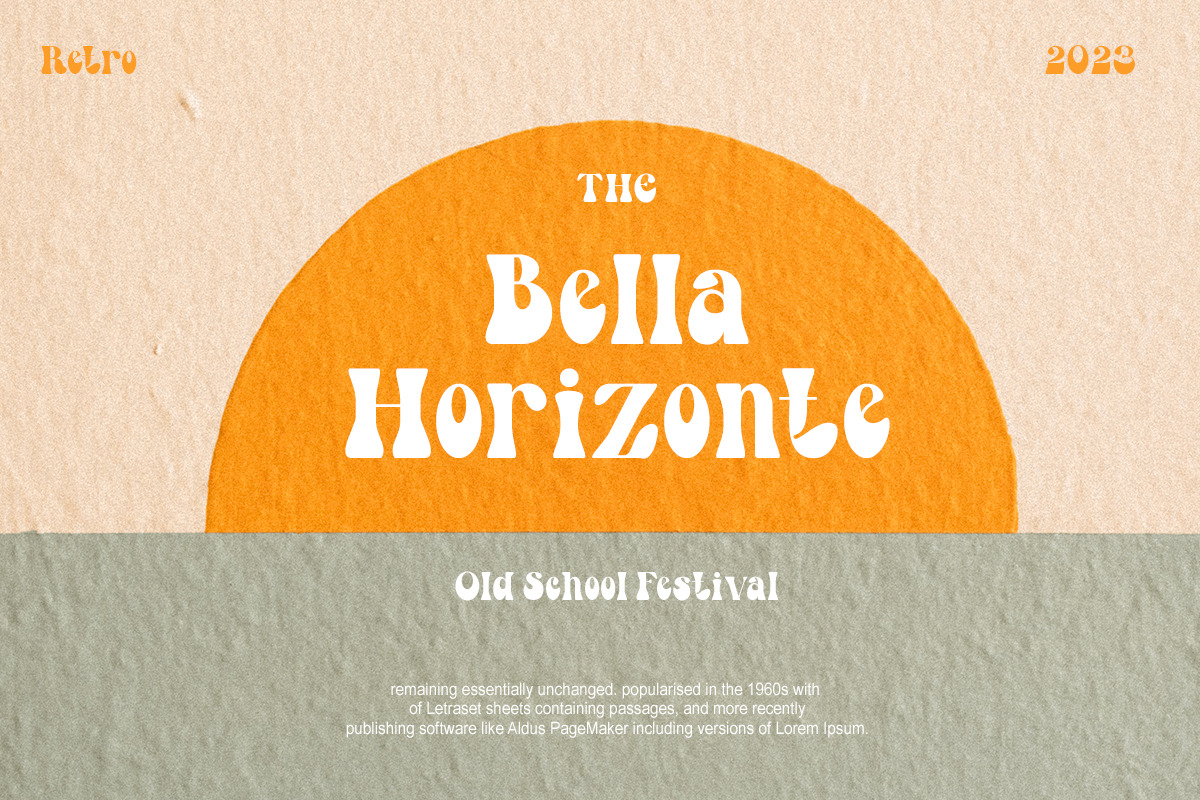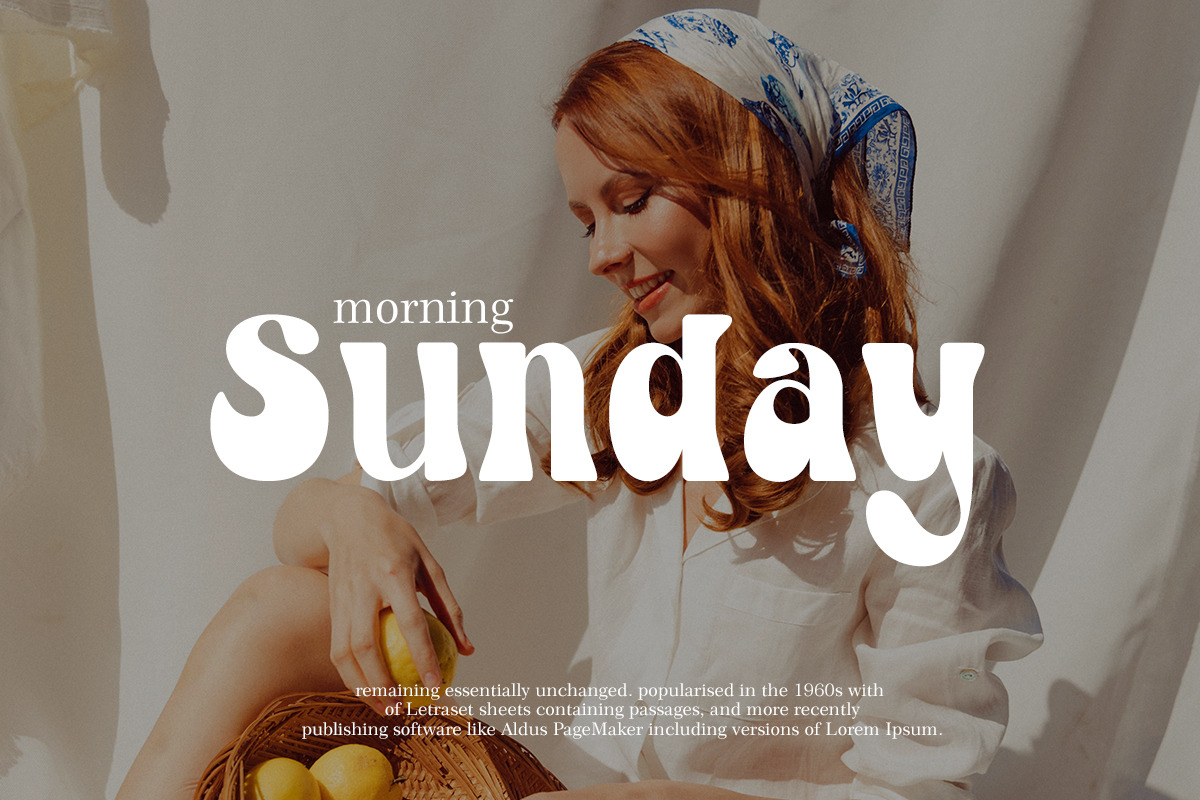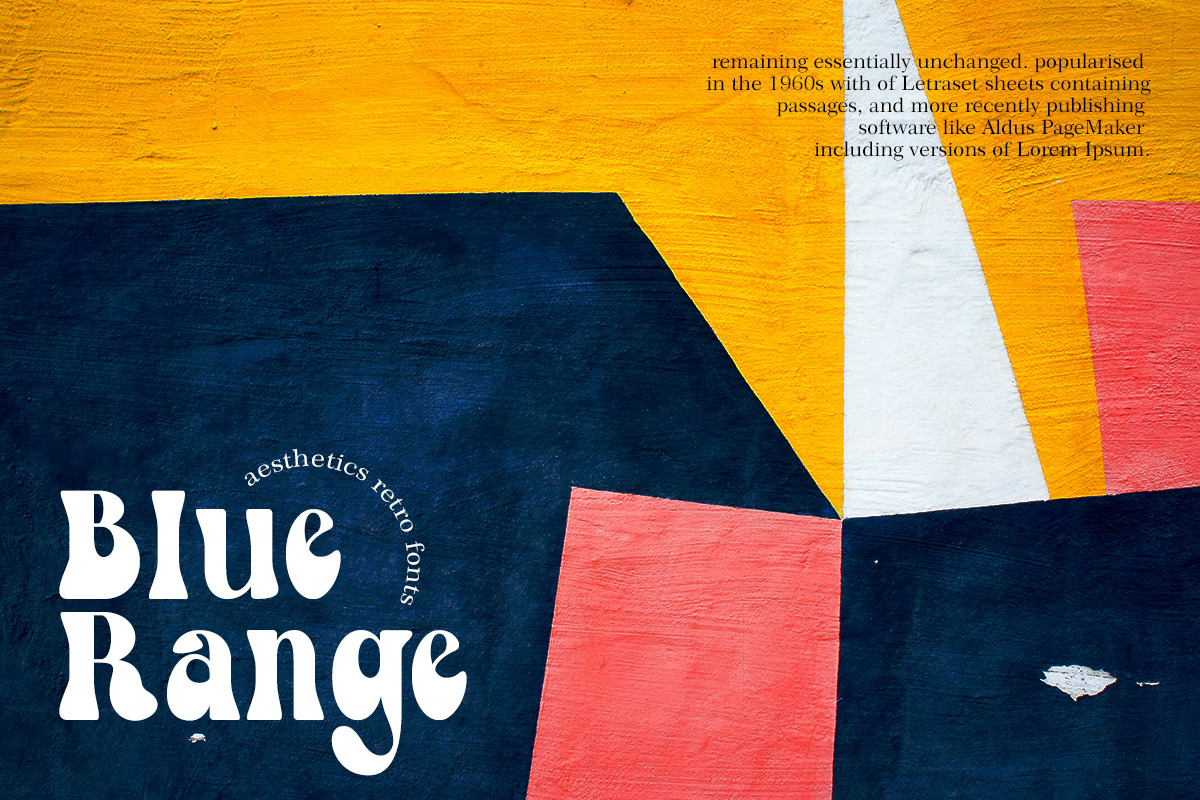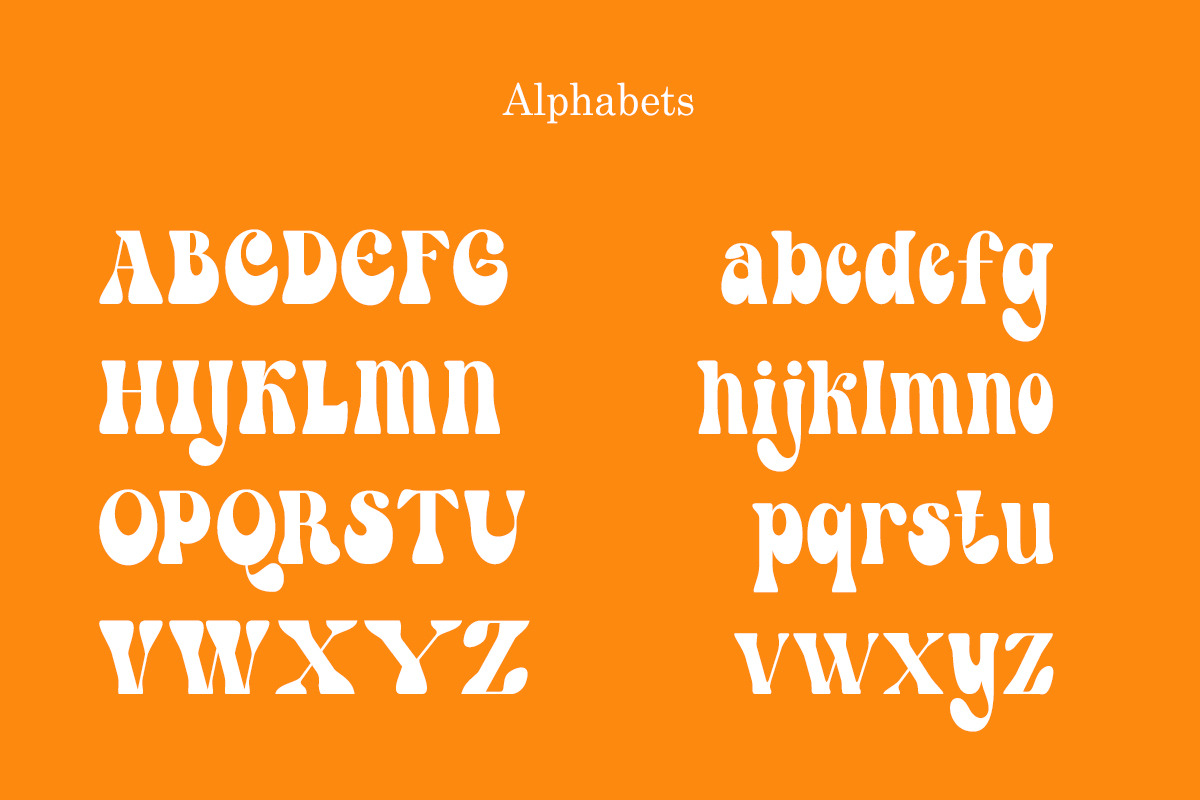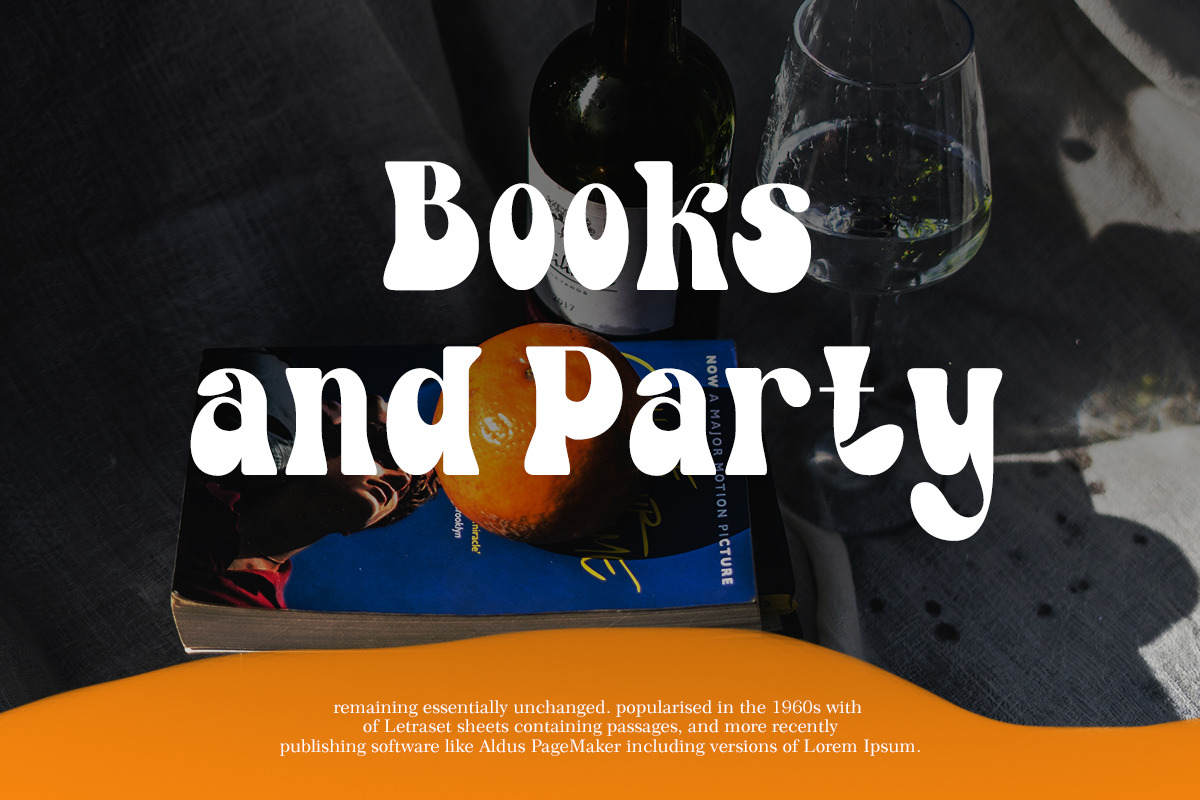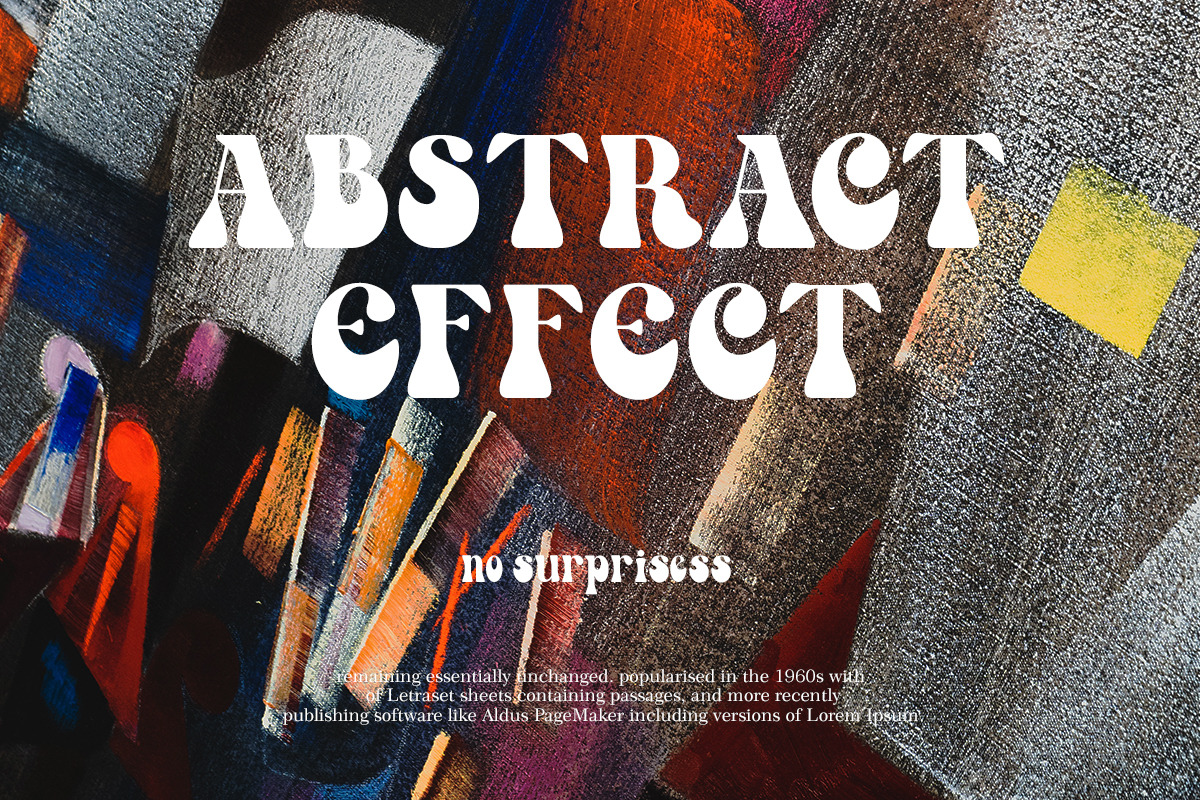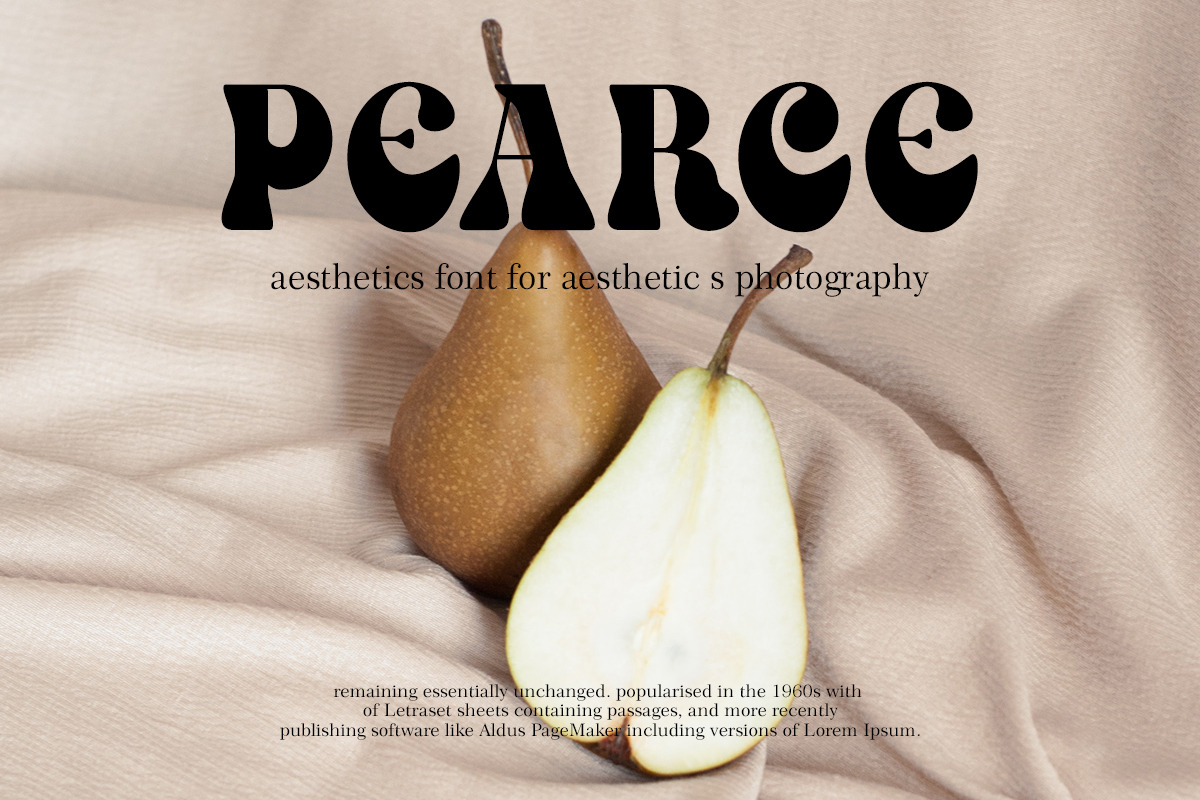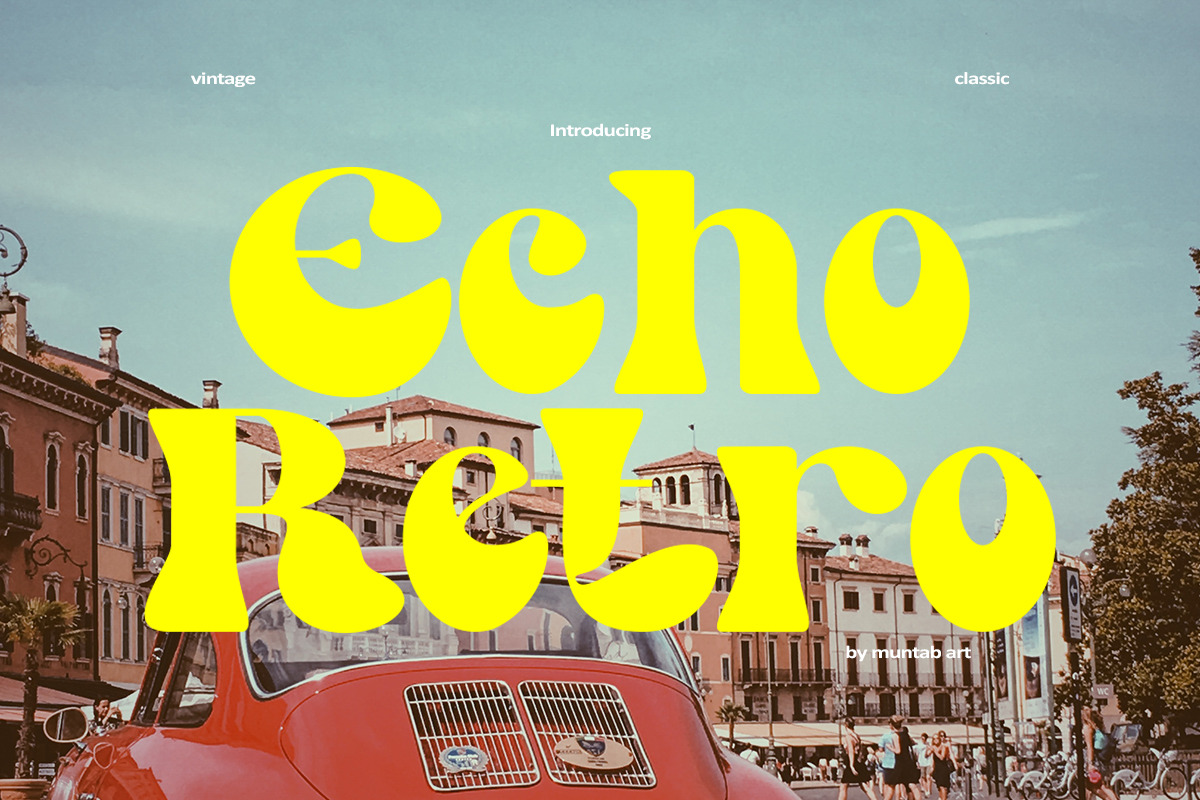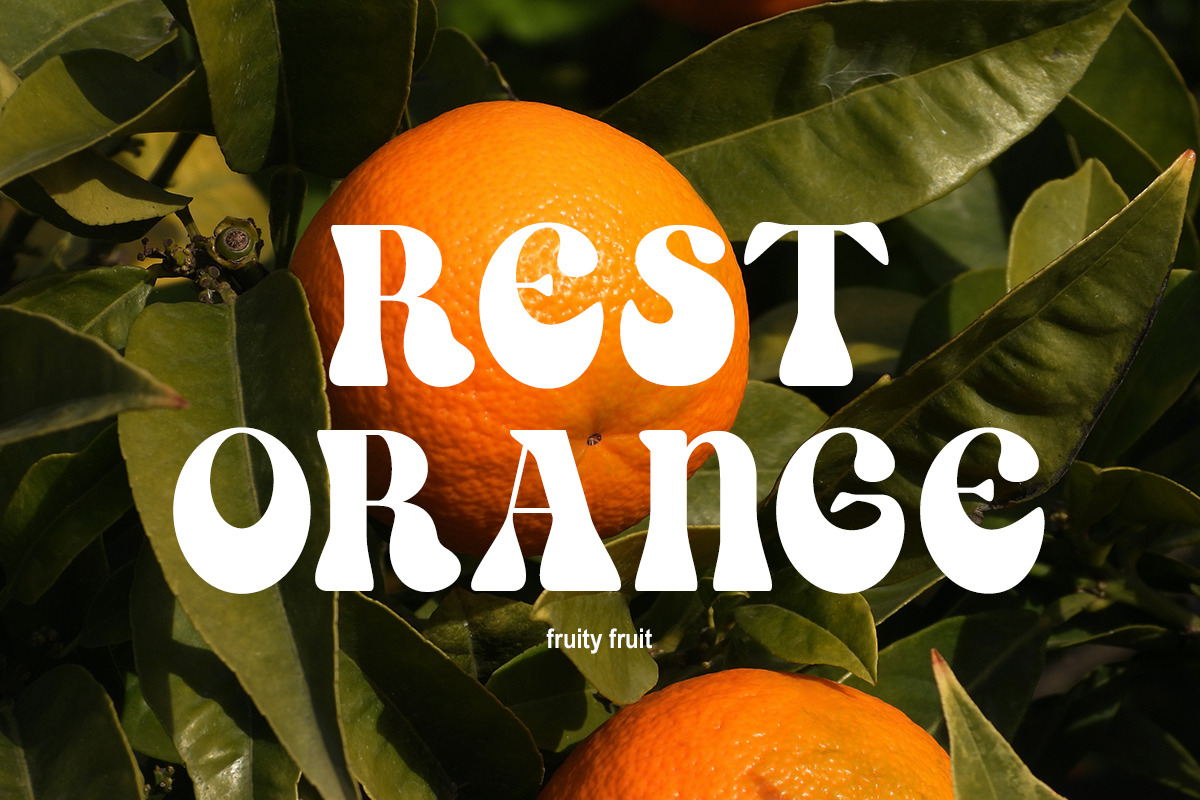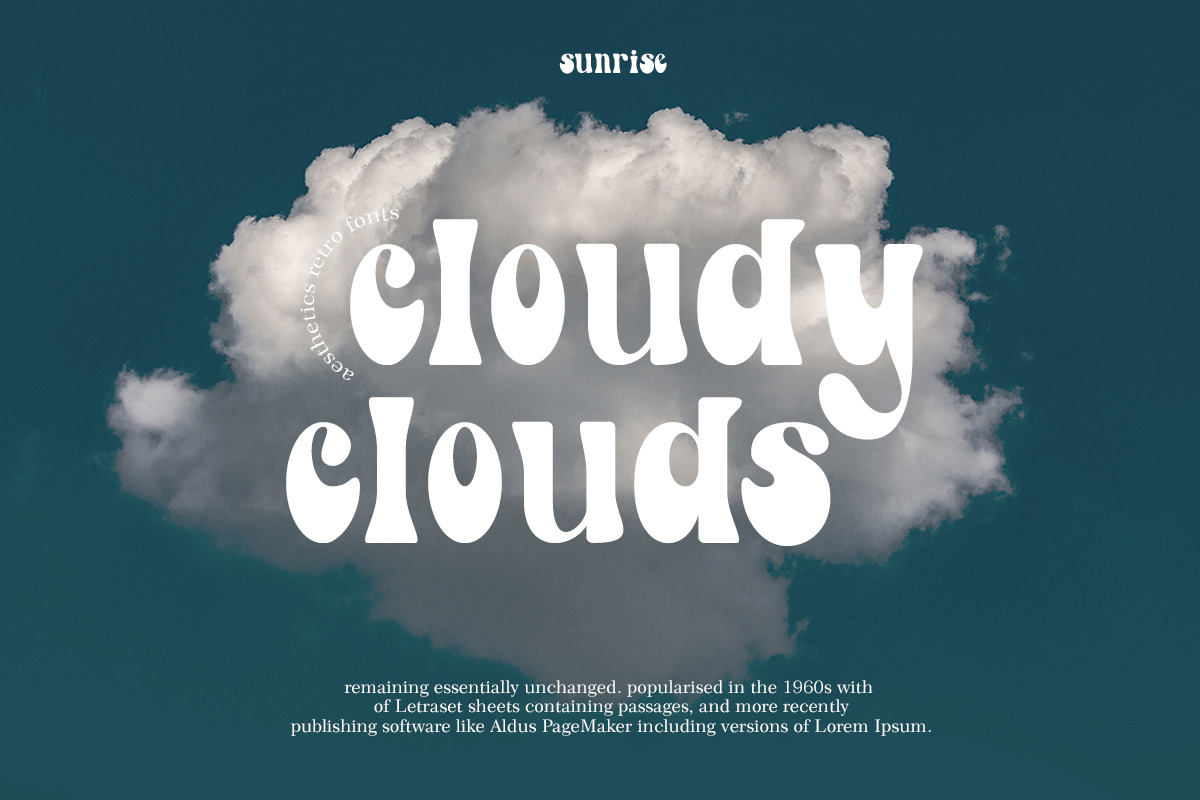
Echo | Retro Font
Echo fonts include uppercase letters, lowercase letters, numerals, a large range of punctuation. Serif font with retro style. Created for poster, web design, branding, illustrations, badges, and some other works.